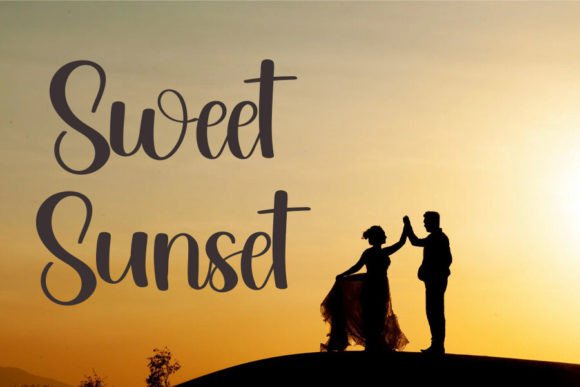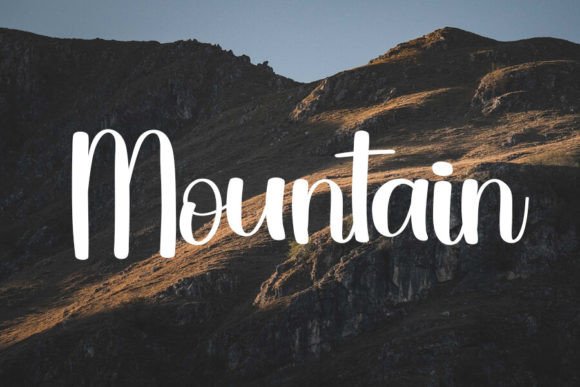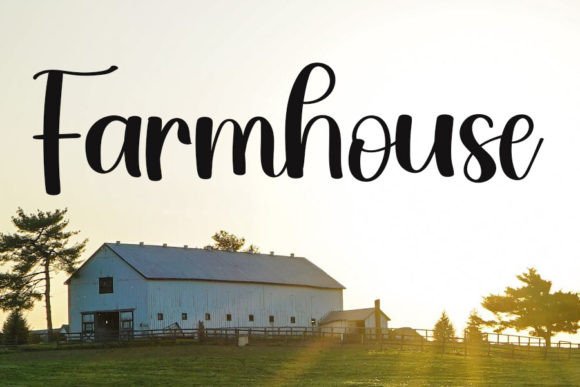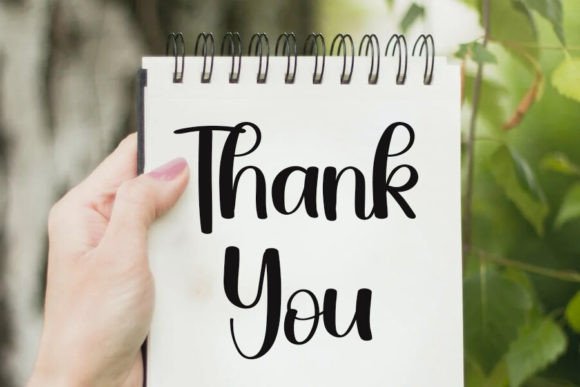
Introducing Backdrop Font: Elevate Your Designs with a Stylish Touch
Are you tired of using the same old fonts in your designs? Look no further than Backdrop Font, a gorgeous and bold handwritten font that’s sure to give your headlines and logotype projects a stylish touch. With its strong, confident, and dynamic aesthetic, Backdrop Font is the perfect choice for designers and crafters looking to add a touch of nostalgia and character to their work.
The Story Behind Backdrop Font
Backdrop Font is a carefully crafted font that’s designed to evoke a sense of nostalgia and timelessness. Its bold, handwritten aesthetic is reminiscent of classic signage and typography from the past, but with a modern twist that makes it perfect for contemporary designs. Whether you’re working on a logo, headline, or any other type of project, Backdrop Font is sure to make a statement.
Key Features of Backdrop Font
So what sets Backdrop Font apart from other fonts on the market? Here are just a few of its key features:
- Bold and confident aesthetic: Backdrop Font is designed to make a statement, with a bold and confident aesthetic that’s sure to grab attention.
- Handwritten charm: With its handwritten aesthetic, Backdrop Font adds a touch of warmth and personality to any design.
- Dynamic and versatile: Whether you’re working on a logo, headline, or any other type of project, Backdrop Font is versatile enough to adapt to any design style.
- Nostalgic character: Backdrop Font’s classic aesthetic is sure to evoke a sense of nostalgia and timelessness in your designs.
How to Use Backdrop Font in Your Designs
Backdrop Font is incredibly easy to use, and can be incorporated into a wide range of design projects. Here are just a few ideas to get you started:
- Logos and branding: Use Backdrop Font to create a bold and memorable logo that’s sure to make a statement.
- Headlines and titles: Add a touch of style and sophistication to your headlines and titles with Backdrop Font.
- Signage and display text: Backdrop Font’s bold aesthetic makes it perfect for use in signage and display text.
- Packaging and product design: Add a touch of personality and character to your packaging and product designs with Backdrop Font.
Tips and Tricks for Getting the Most Out of Backdrop Font
Here are just a few tips and tricks for getting the most out of Backdrop Font:
- Experiment with different colors and textures: Backdrop Font looks great in a wide range of colors and textures, so don’t be afraid to experiment and find the perfect combination for your design.
- Use it sparingly: While Backdrop Font is bold and attention-grabbing, it can also be overwhelming if overused. Use it sparingly to create maximum impact.
- Pair it with other fonts: Backdrop Font pairs well with a wide range of other fonts, so don’t be afraid to experiment and find the perfect combination for your design.
In conclusion, Backdrop Font is a gorgeous and bold handwritten font that’s sure to elevate your designs to the next level. With its strong, confident, and dynamic aesthetic, Backdrop Font is the perfect choice for designers and crafters looking to add a touch of nostalgia and character to their work. Whether you’re working on a logo, headline, or any other type of project, Backdrop Font is sure to make a statement.